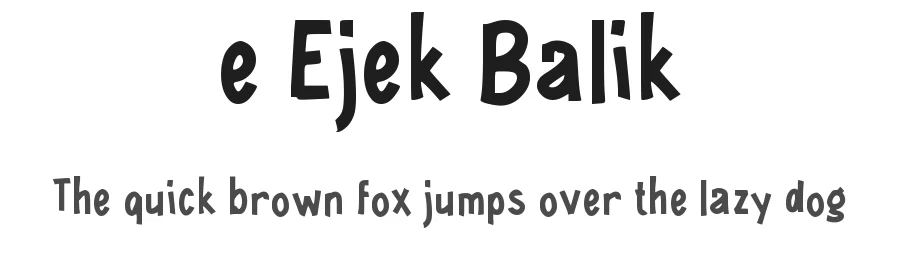
About Gagaille Seconde Font
Gagaille Seconde is a decorative font designed by Anthony Beyer. It includes 56 glyphs, a black weight, TTF (TrueType) format, and 89 languages. Gagaille Seconde is free to download; check the license details on this page before commercial use. Decorative fonts like Gagaille Seconde work best for logos, posters, packaging, and standout headlines.
- Heavy, Bold, Distinctive, Fancy
Gagaille Seconde Font is a decorative font that shines as a display or heading face. Pair it with a clean sans-serif or serif font for body text β the contrast creates a clear hierarchy while the two styles stay balanced and easy to read.
Gagaille Seconde Font is a decorative typeface by Anthony Beyer, ideal for logos, invitations, branding, and creative projects.